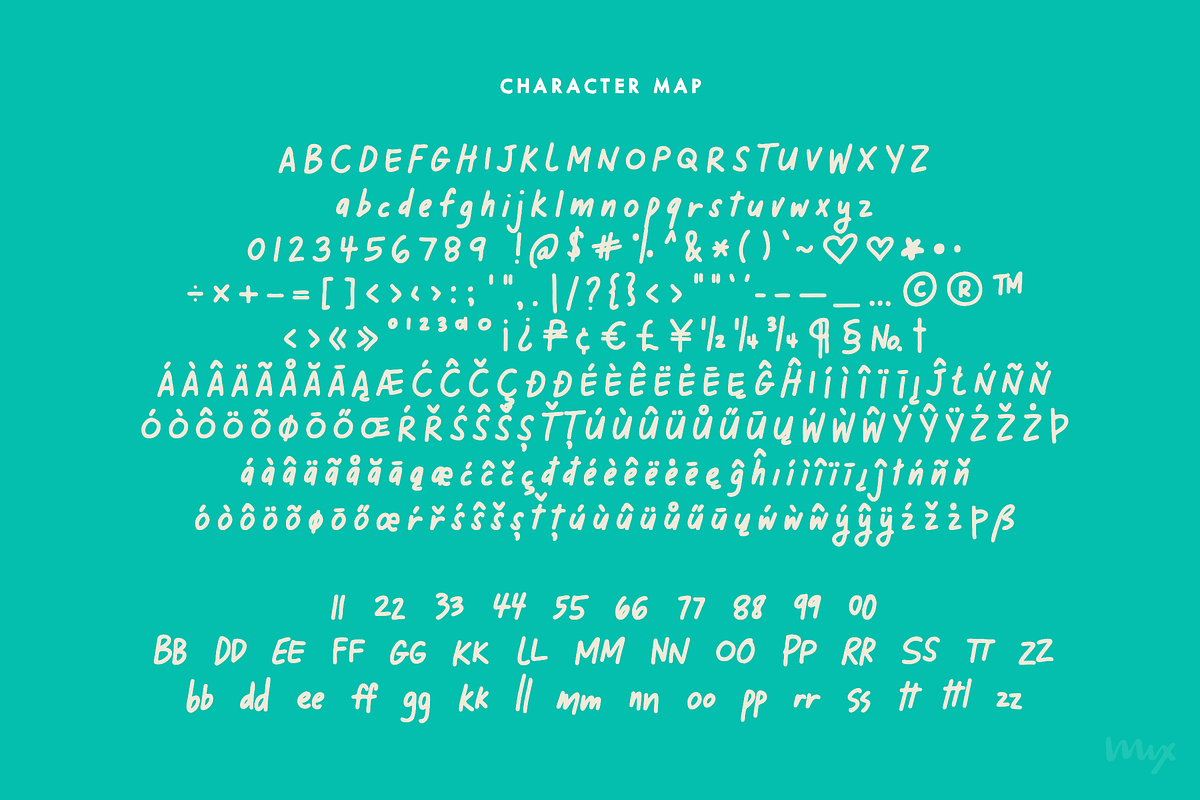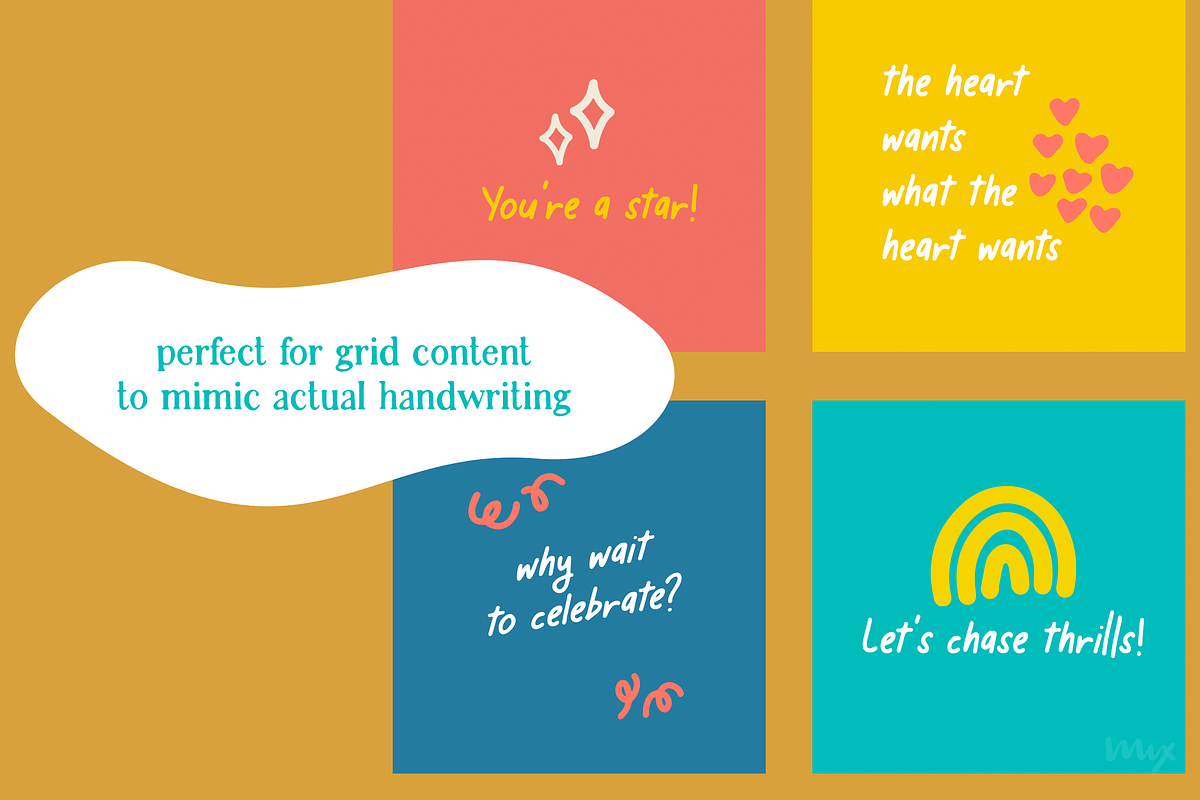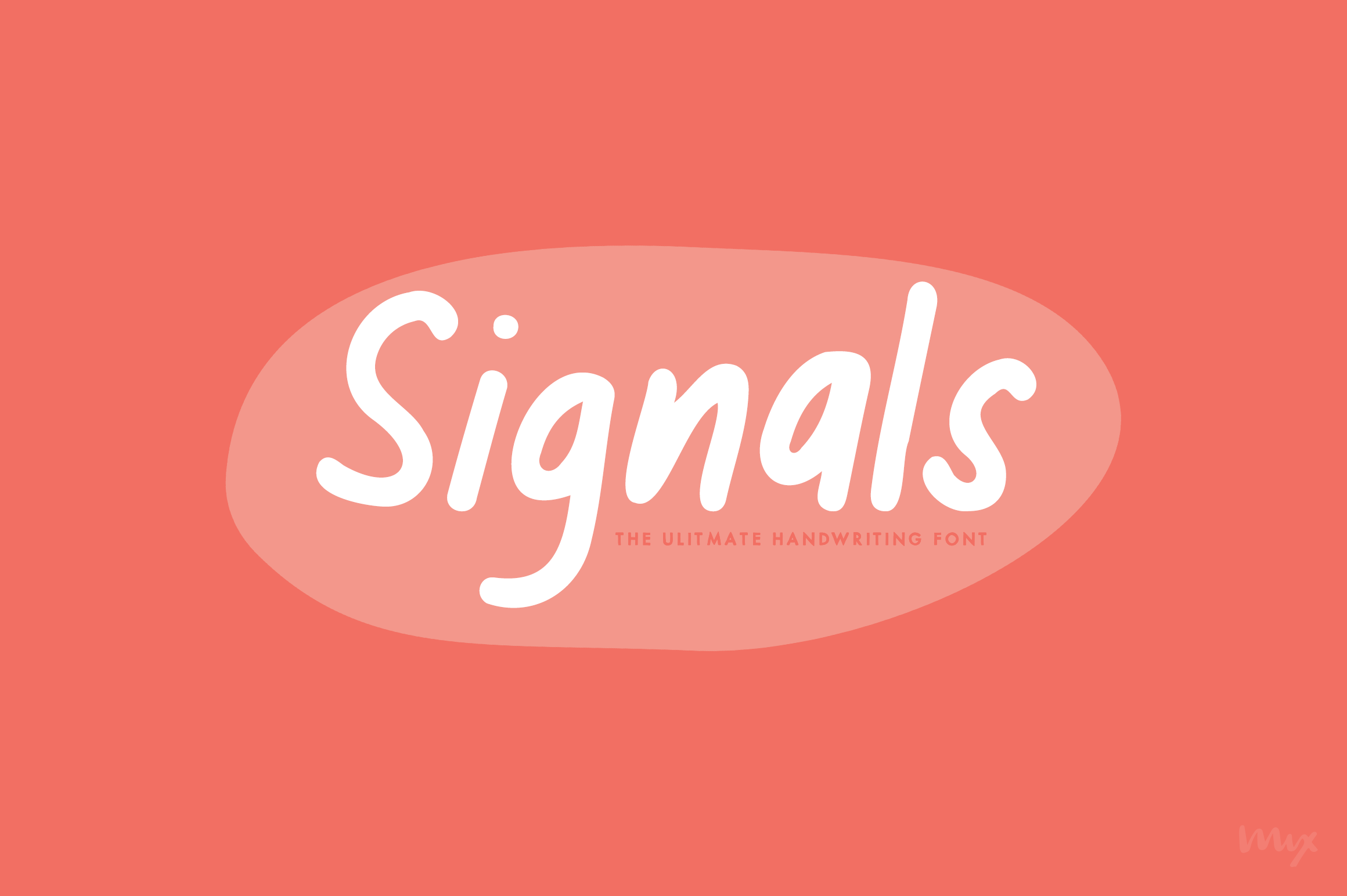
Signals - The Best Handwriting Font
MIX SIGNALS is a hand-written, twirly sans-serif font that is ideal for projects that require a homemade, DIY feel. This typeset comes with a wide range of alternates and ligatures, which provides you with countless options for customization. Additionally, this font offers support for multiple languages, making it versatile and useful for any project.
This font is suitable for use in a wide variety of design projects, such as social media quotes, packaging and branding. Its feminine style makes it suitable for casual or relaxed settings such as social media post, and it can also be used in more formal settings such as book covers. With its multi-lingual support and multitude of alternates and ligatures, MIX SIGNALS can be easily customized to fit any design need.
Extended character set to include accented characters and punctuation:
- ABCDEFGHIJKLMNOPQRSTUVWXYZ
- 0123456789 !@$#%^&*()`~♥❤✿•·
- ÷×+−=[]‹›:;'",.|/?{}“”‘’-–—_…©®™
- «»°¹²³ªº¡¿₱¢€£¥½¼¾¶§№†
- ÁÀÂÄÃÅĂĀĄÆĆĈČÇÐĐÉÈÊËĖĒĘĜĤIÍÌÎÏĪĮĴŁŃÑŇ
- ÓÒÔÖÕØŌŐŒŔŘŚŜŠȘŤȚÚÙÛÜŮŰŪŲẂẀŴÝŶŸŹŽŻÞ
- áàâäãåăāąæćĉčçðđéèêëėēęĝĥıíìîïīįĵłńñň
- óòôöõøōőœŕřśŝšșťțúùûüůűūųẃẁŵýŷÿźžżþß
Ligatures for:
- 11 22 33 44 55 66 77 88 99 00
- BB DD EE FF GG KK LL MM NN OO PP RR SS TT ZZ
- bb dd ee ff gg kk ll mm nn oo pp rr ss tt ttl zz